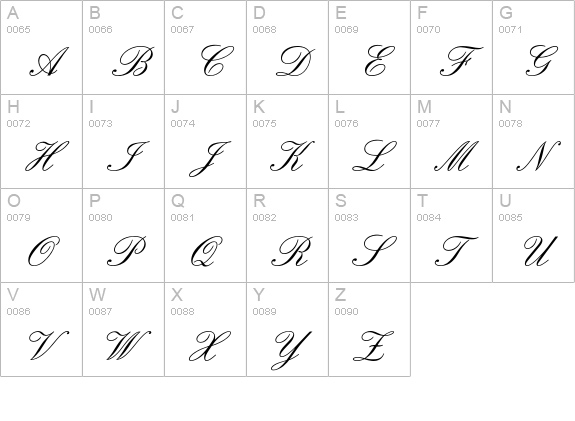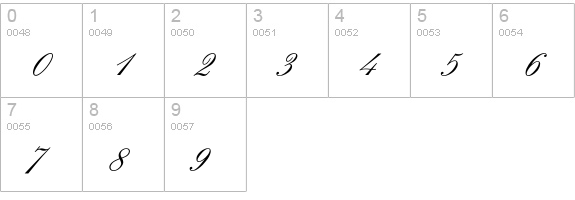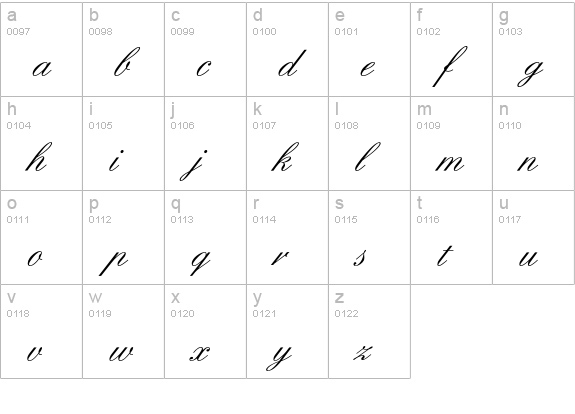
Englische Schreibschrift Regular is the standard, neutral variant in the Englische typeface family \xE2\x80\x94 well suited to general body text, paragraphs, and standard typographic work.
Englische Schreibschrift Regular font is a classic and elegant typeface that embodies the timeless beauty of traditional English handwriting. With its flowing strokes and delicate curves, this font exudes sophistication and grace. Whether used for formal invitations, wedding announcements, or elegant branding, Englische Schreibschrift Regular font adds a touch of refinement to any design. The best part is that Englische Schreibschrift Regular font is completely free to download at FontsMarket.com. This means you can easily access this stunning font for all your creative projects without any cost. So why wait? Enhance your designs with the timeless charm of Englische Schreibschrift Regular font today!